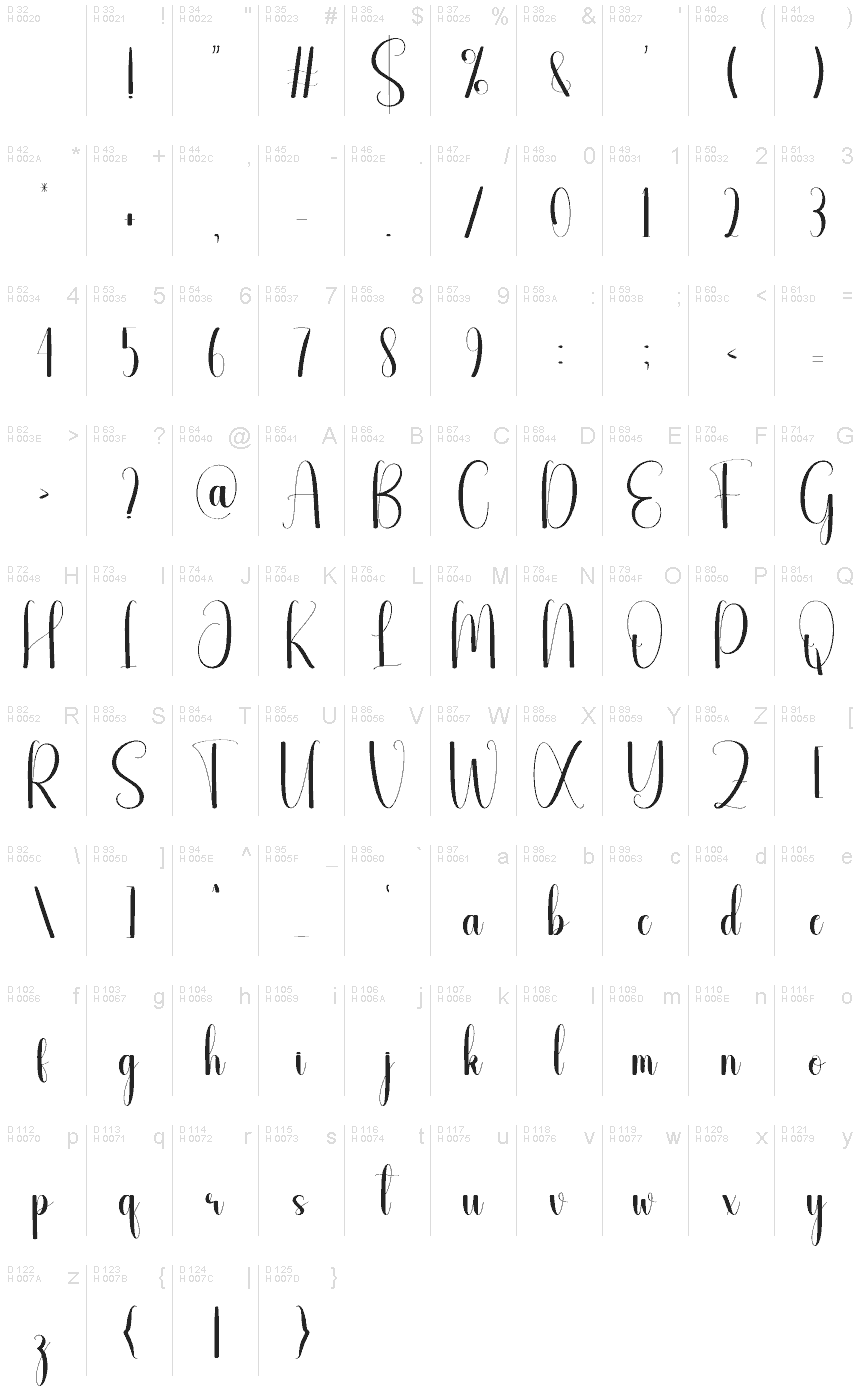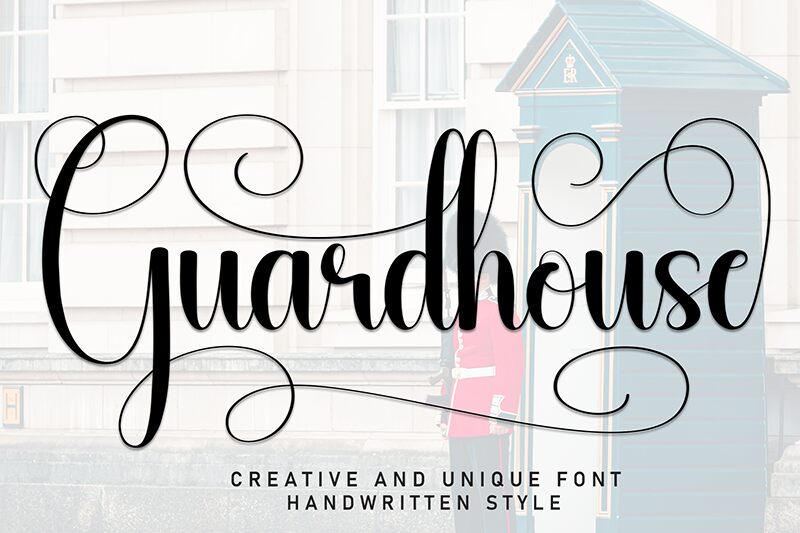
Guardhouse
Guardhouse font by Andi Moz is a modern calligraphy font with elegant and flowing letters. Condensed in its width, the decorative typeface also showcases a well-balanced style. Both sophisticated and expressive, the handwritten characters are gracefully appearing on the baseline.
Such cursive fonts are great for wedding invitations, RSVP cards, greeting cards, logos, store signs, posters, labels, printing on t-shirts or mugs, etc.